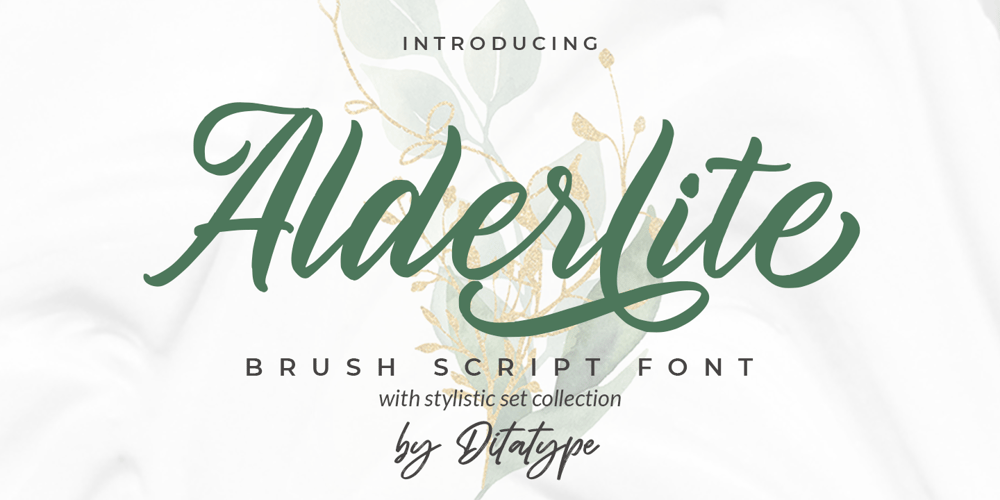
Alderlite Font Family was designed by Donis Miftahudin and published by Ditatype. Alderlite contains 1 styles and family package options. Alderlite is a elegant brush font. With a classy style, it brings a beautiful and chic typeface. Alderlite is best used for branding logotype, and quotes.Includes:Alderlite (OTF)Features: Standart Ligatures Stylistic Set Multilingual Support PUA Encoded Numerals and Punctuation Thank you for downloading premium fonts from Dita Type